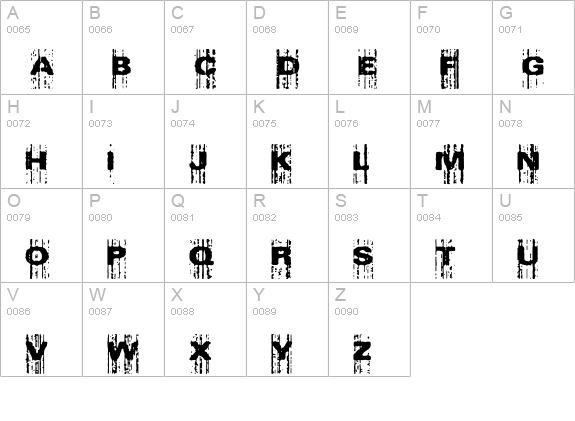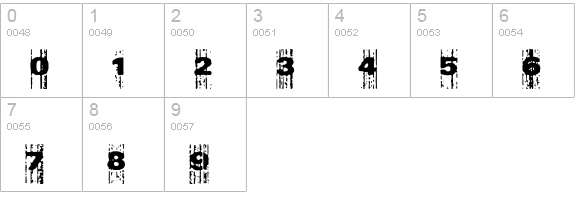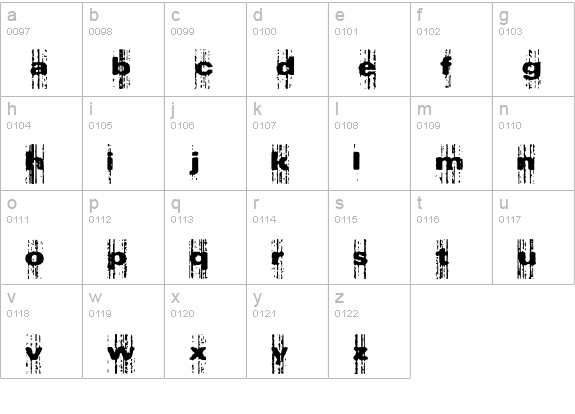
Xerox Malfunction (BRK) Font Details
Xerox Malfunction (BRK) font is a unique and edgy typeface that exudes a sense of digital chaos and futuristic energy. With its distorted and glitchy appearance, this font captures the essence of a malfunctioning Xerox machine, creating a visually striking and unconventional look for your design projects. This font is perfect for adding a touch of avant-garde style to your creative works, whether for posters, album covers, websites, or branding materials. The irregular shapes and jagged lines of the characters give a sense of movement and unpredictability, making your text stand out and grab attention. What's even better is that Xerox Malfunction (BRK) font is completely free to download at FontsMarket.com. So go ahead and unleash your creativity with this one-of-a-kind typeface that will surely make a bold statement in your designs.